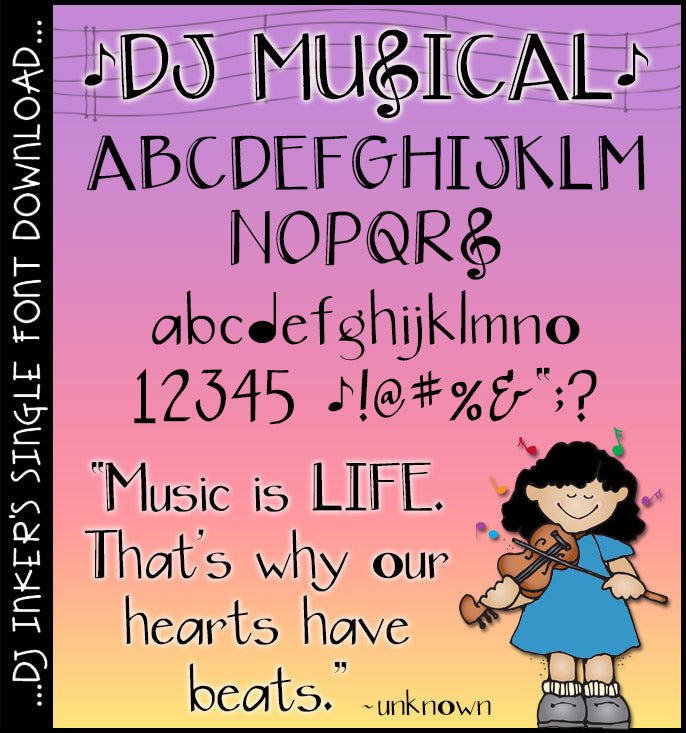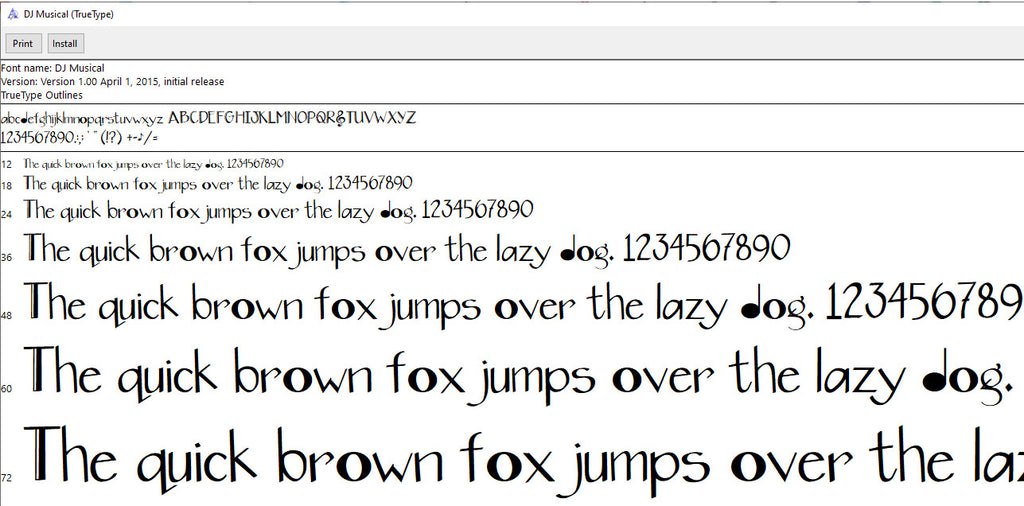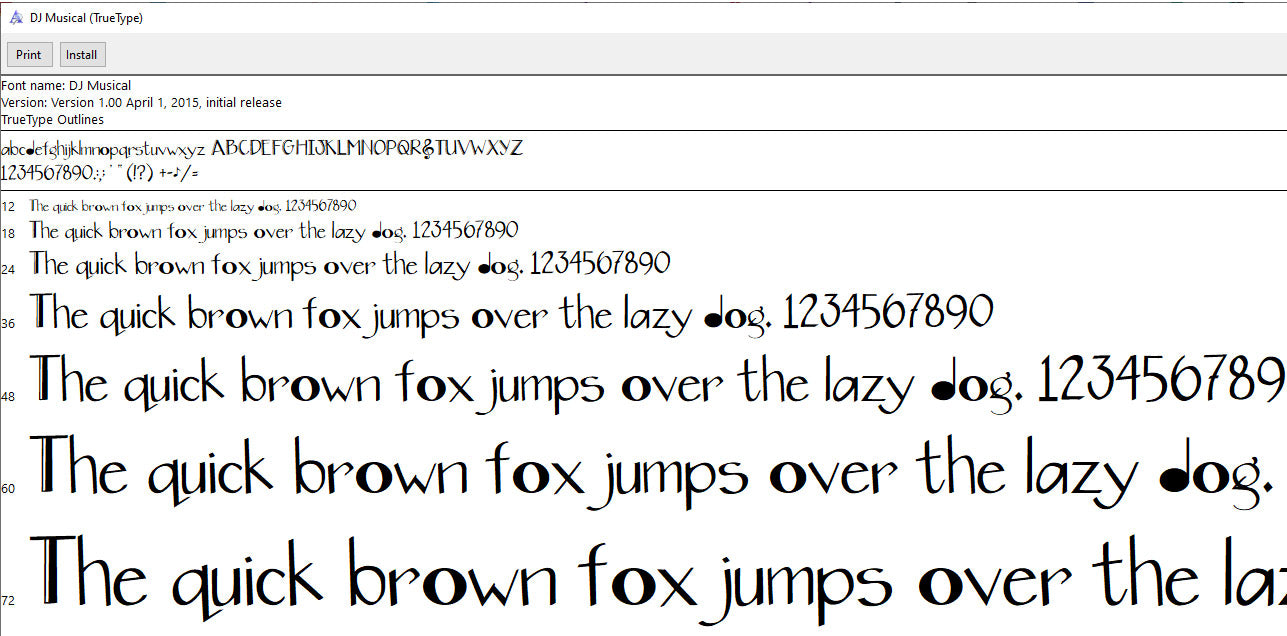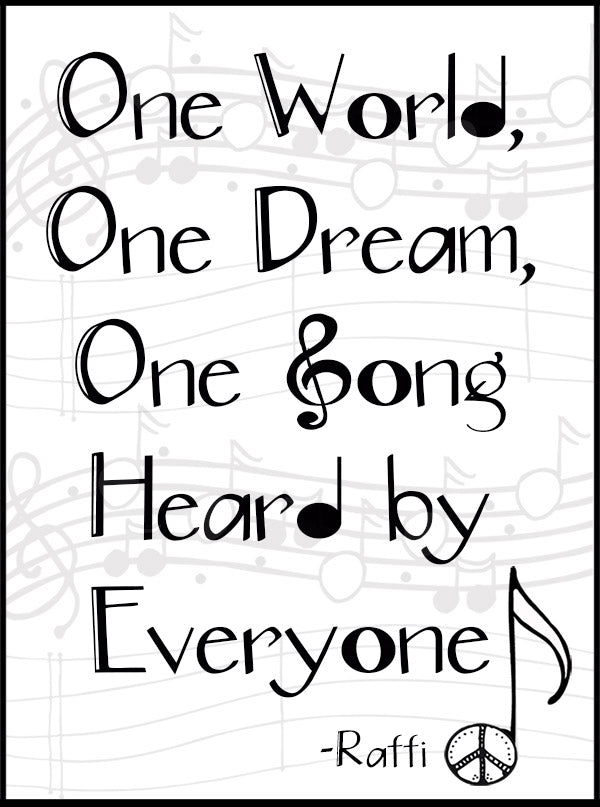
Your projects will sing with smiles when you type with this sharp little font, DJ Musical. Excellent for band, choir, music lessons, or writing notes. ;) We've even included a whimsical music staff for you to layer behind your lettering & really have some fun with this font!